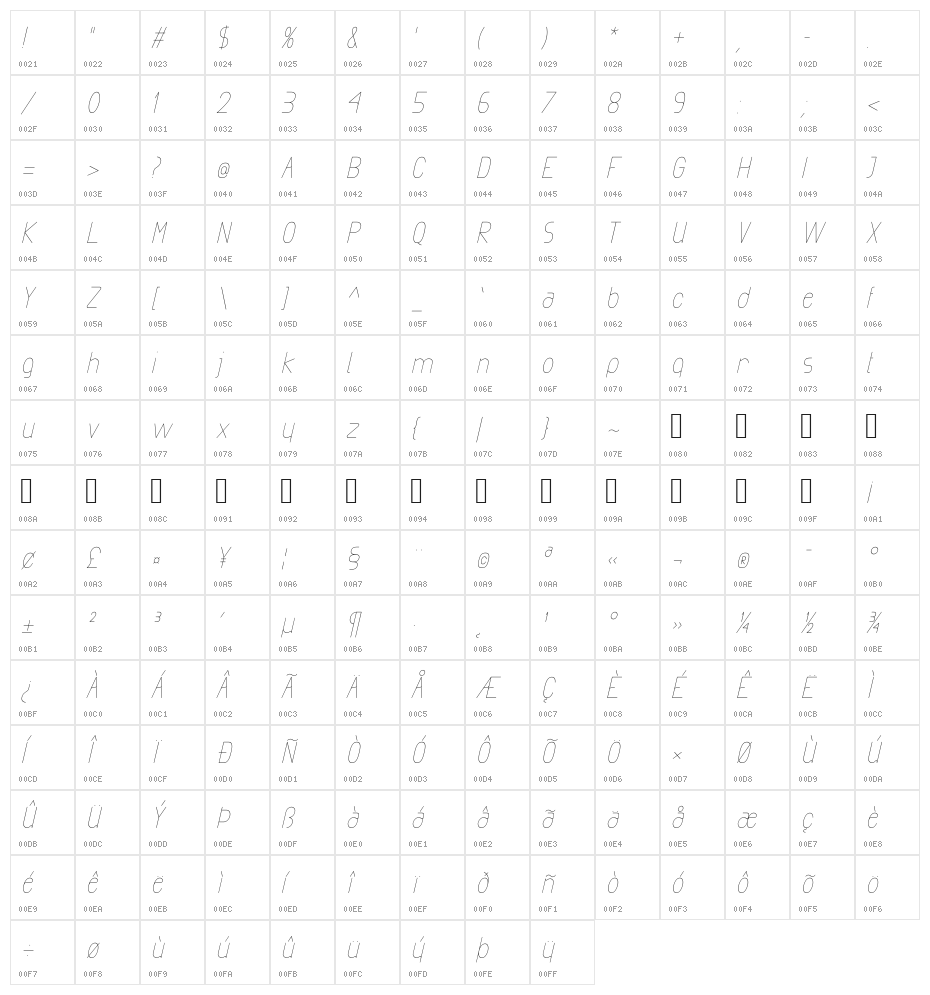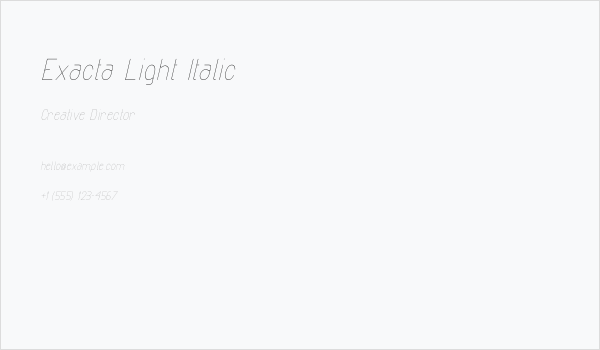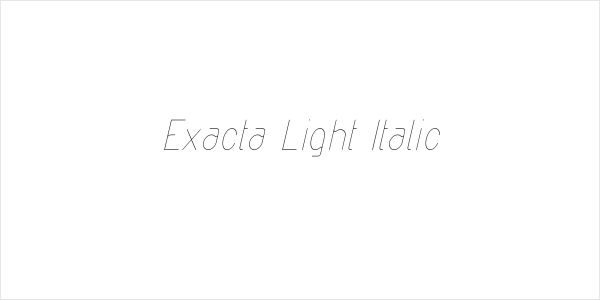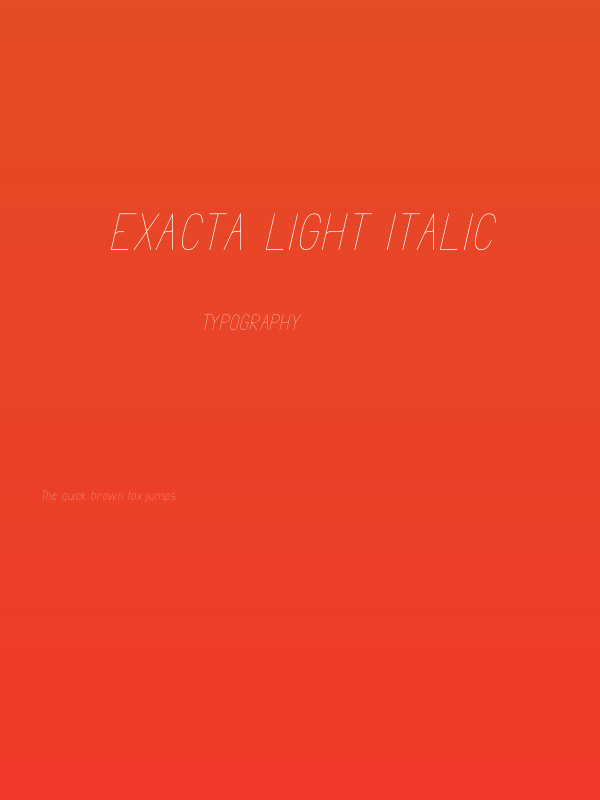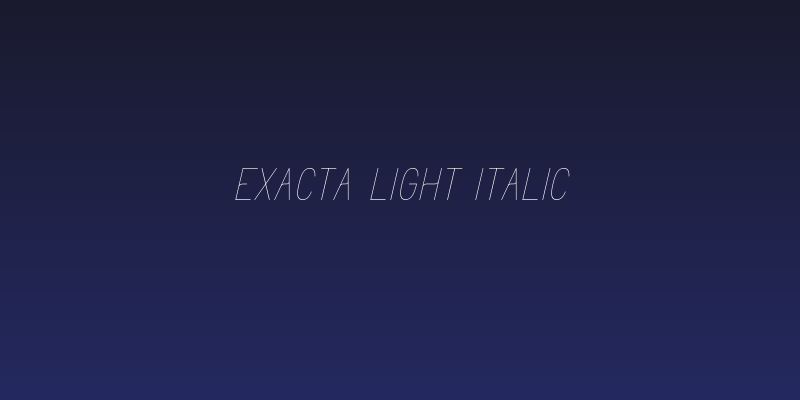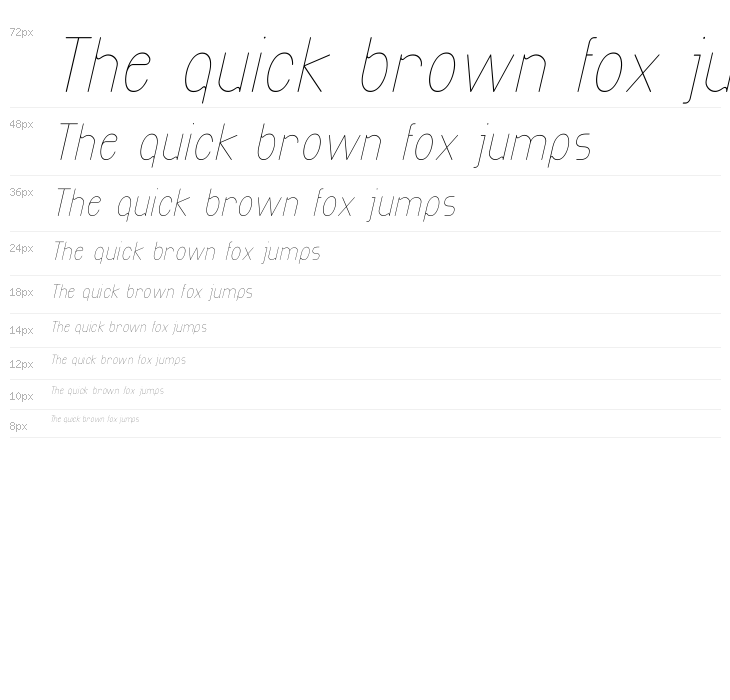
Exacta Light Italic Font
Exacta Light Italic Description
This font features a sleek, modern design with a light and airy feel. The characters are italicized, giving them a dynamic and forward-leaning appearance. The strokes are thin and consistent, contributing to a clean and elegant aesthetic. The uppercase and lowercase letters maintain a uniform style, with a slight slant that adds a sense of motion. The numerals are clear and distinct, matching the overall minimalist design. Special characters are included, seamlessly integrating with the rest of the font's style. This font is ideal for projects that require a sophisticated and contemporary look.
| Proposed Projects | Ideal for modern branding, editorial design, fashion magazines, and elegant invitations. |